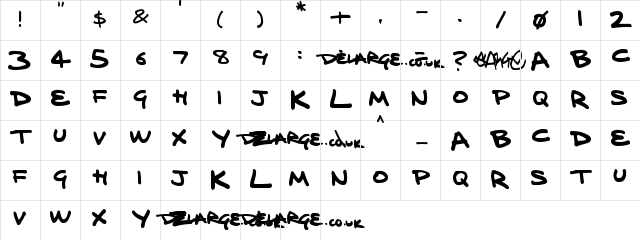
delarge marker pen Regular Font Preview
delarge marker pen Regular
Design Context for delarge marker pen Typeface
delarge marker pen is a composed and adaptable typeface that performs quietly and consistently across a wide range of design contexts.